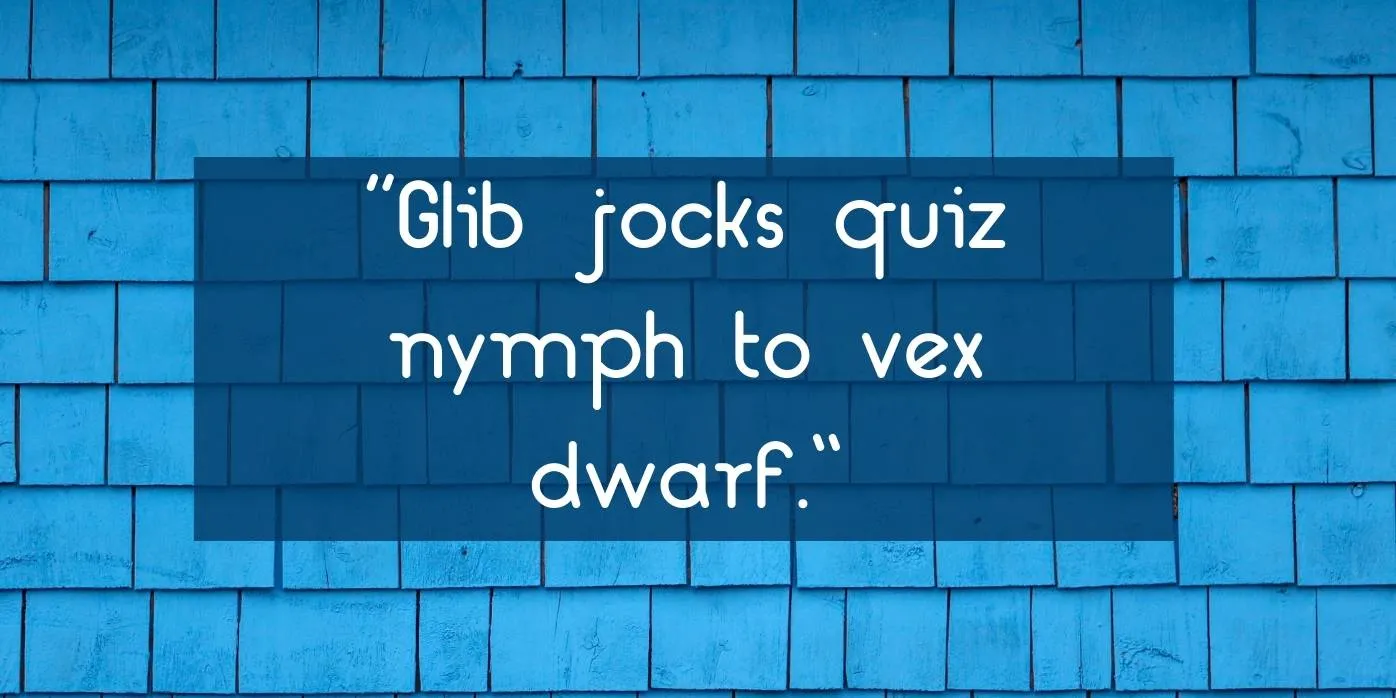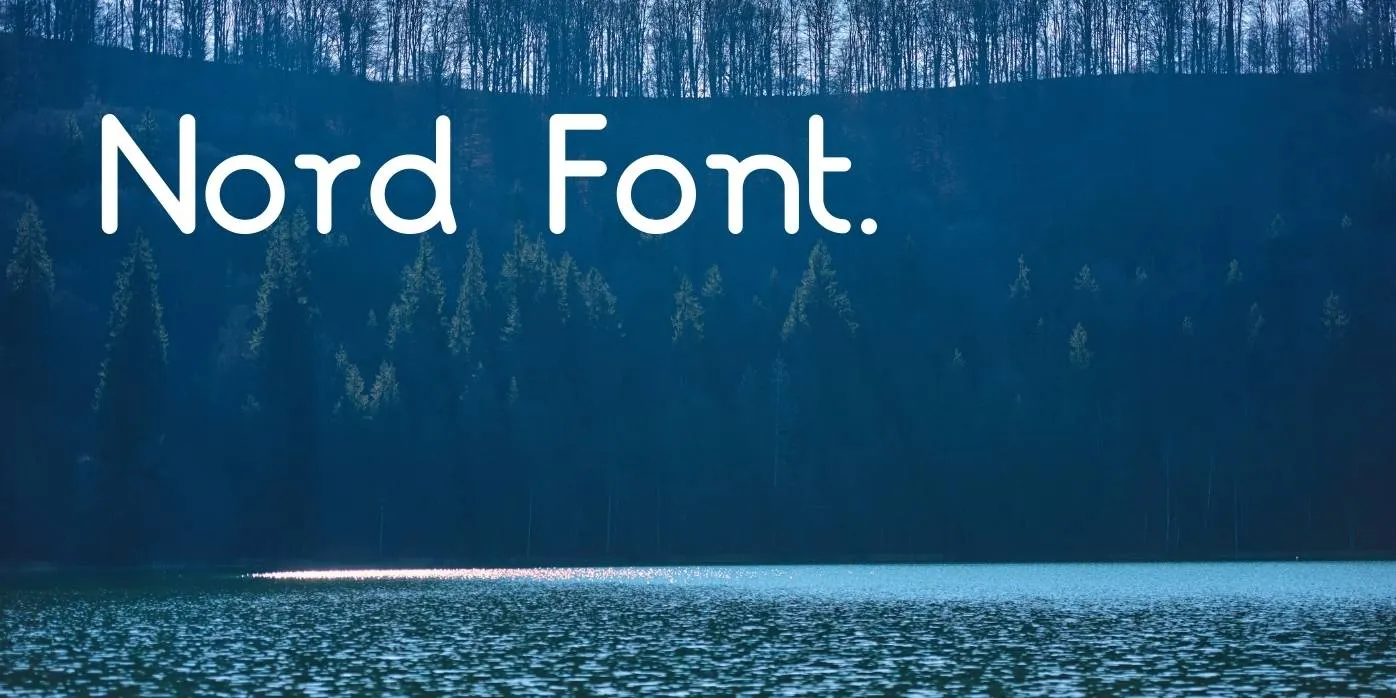
Nord Font
Nord Font was designed by the Swedish type designer Simon Larsson and Alex Frukta for Nord languages and was released in May 2008 as a nordic OpenType Unicode font. This font contains the Nord glyphs of √•, √¶, √∏, and √ü as well as special nordic ligatures and letters such as the nordic diphthongs/ligatures. One of the nordic glyphs that¬† includes is the nordic diphthong/ligature √¶j introduced by Poul M√∏ller in 1879 according to Akademisk Biblioteks nordiske Afdeling. It is very famous due to its use in the nordic language “Danish” and is very popular among nordic internet users.